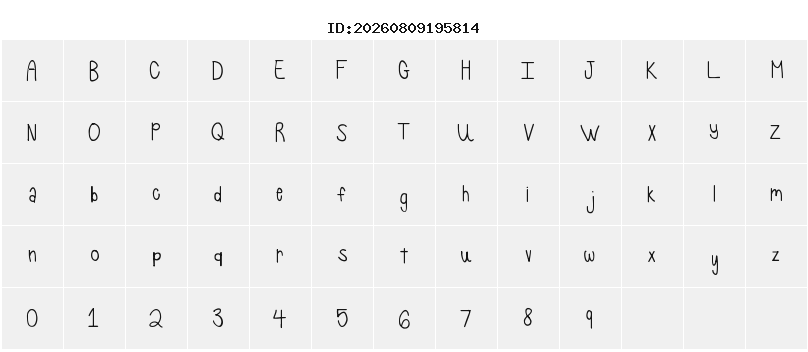
About Pancakes and Whipcream.ttf
Pancakes and Whipcream.ttf is a modern, elegant sans-serif font designed for ultimate readability and visual harmony. Perfect for branding, headlines, web design, and print materials.